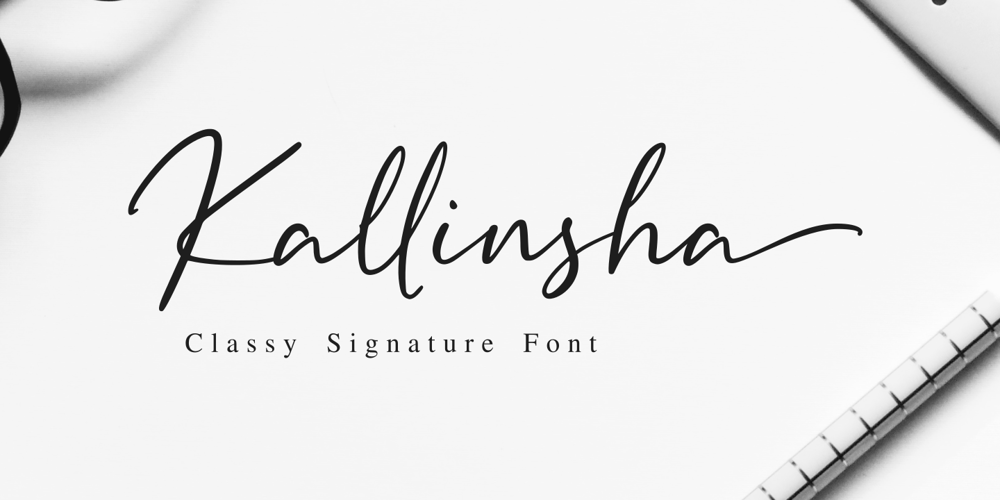
Kallinsha Font Family was designed by Faja Abdul Fatah and published by Sibelumpagi. Kallinsha contains 1 styles and family package options. Kallinsha is a classy signature typeface. Kallinsha has a natural & modern handwritten style for any purpose, it comes with ligatures and alternates for ending swashes. Kallinsha is perfect for many different projects such as logos & branding, invitation, stationery, wedding designs, social media posts, advertisements, product packaging, product designs, label, photography, watermark, special events or anything.